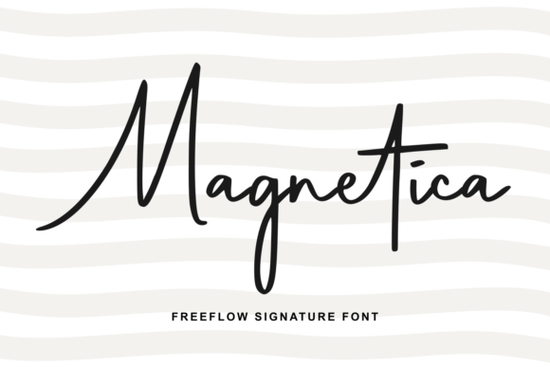
Picking the perfect typography for a new project often feels overwhelming, especially when you need something that bridges the gap between professional polish and personal warmth. This is why many creators turn to Magnetica Font. It is a graceful signature font designed to mimic effortless handwritten strokes while keeping a modern edge. Whether you are working on digital graphics or physical prints, having a typeface that flows naturally is essential for connecting with your audience.
What creates its unique character?
The core appeal of Magnetica lies in its balance. It avoids being too stiff or rigid, which often kills the mood of a design meant to feel intimate. Instead, you get flowing curves and delicate lines that suggest movement. The letter connections are smooth, ensuring that even longer words remain legible. This helps maintain a polished appearance without sacrificing the authenticity of a real person signing a document.
If you are designing materials where tone matters deeply, such as personal letters or boutique product labels, this typeface delivers that distinct and memorable character. It brings a sense of warmth to the work, making it approachable rather than cold or corporate. The balanced proportions prevent the letters from feeling crowded, allowing negative space to breathe naturally around the text.
- Legibility: Despite being a script, key details like capitalization and spacing remain clear.
- Versatility: Suitable for headings, body text accents, or full logo marks.
Best applications for this typeface
Designers often wonder where a script like this fits best in their workflow. Because it has a sophisticated touch, it pairs exceptionally well with branding materials that want to appear premium yet accessible. You might use it for restaurant menus to suggest a cozy dining experience, or for wedding stationery to convey romance and care.
Social media graphics also benefit significantly from this style. Inspirational quotes posted online stand out better when wrapped in a font that feels organic. Instead of standard sans-serifs that blend into the scroll feed, Magnetica adds distinctive weight to the message. For print-on-demand sellers, it works well on mugs, t-shirts, and canvas prints, provided the text isn't scaled too small.
Alternatives to consider alongside Magnetica
While this specific font is excellent, sometimes you need to see how it compares to other styles available in the marketplace. If you enjoy the handwritten aesthetic but want something slightly bolder or softer, there are other options worth testing. Exploring a variety ensures you find the exact match for your specific brand identity.
Adding a personalized touch to your projects requires the right tools, and typography is often the loudest tool in the box. By choosing a font that understands rhythm and connection, you signal attention to detail to your customers immediately. Take your time selecting the style that matches your vision, and you will see the difference in the final presentation.